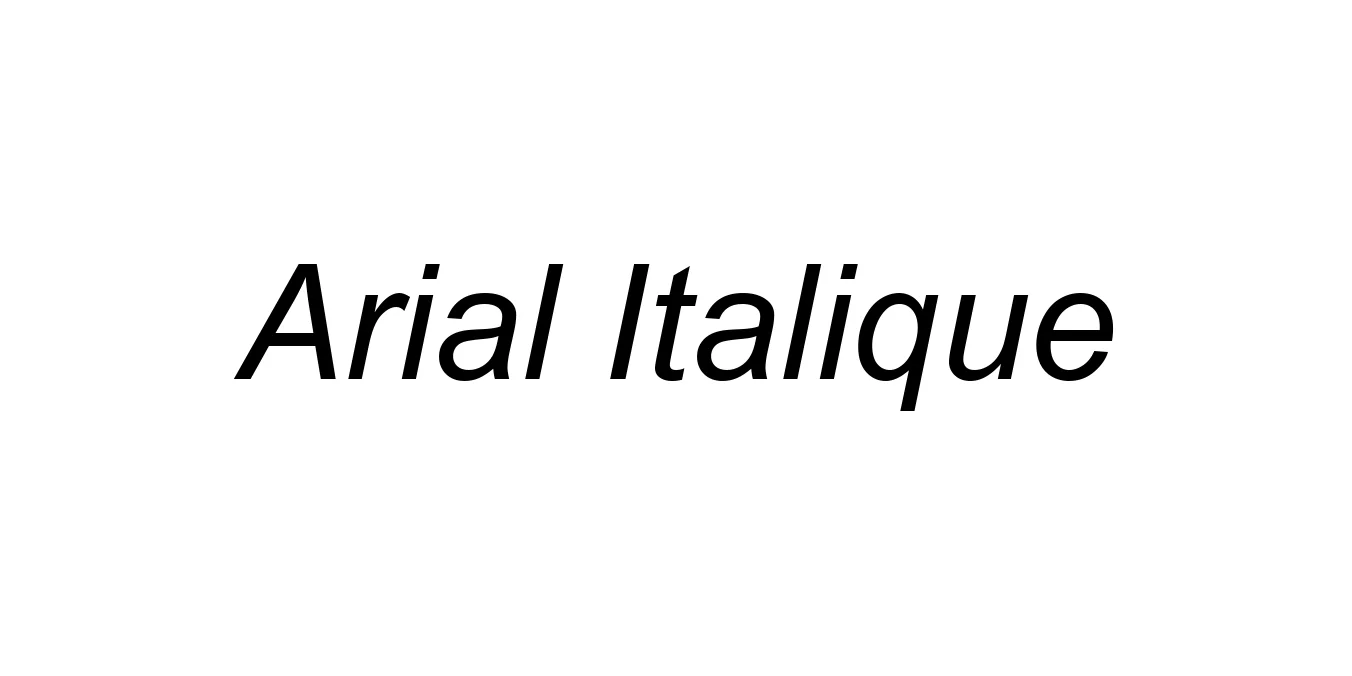
Arial Italique
Designed by Robin Nicholas and Patricia Saunders
| Category | Neo-Grotesque Sans Serif |
| Designer | Robin Nicholas and Patricia Saunders |
| Similar Fonts | Helvetica, Arimo, Liberation Sans, Roboto |
Arial Italique was designed in 1982 by a team led by Robin Nicholas and Patricia Saunders for Monotype Typography. Originally conceived to compete with Helvetica and to be utilized in IBM’s laser printers, it was engineered to match the character widths of its Swiss counterpart. This metric compatibility allowed documents formatted for Helvetica to be printed using Arial without text reflow. Over the decades, it has become one of the most ubiquitous typefaces in the digital world, shipped as a standard font with Microsoft Windows and Apple macOS environments.
From a technical standpoint, Arial Italique is an oblique rather than a true calligraphic italic. The letterforms are slanted at a consistent angle, maintaining the neo-grotesque structure of the Roman weight. Its high x-height and open counters facilitate exceptional legibility at low resolutions, making it a workhorse for screen-based interfaces. Unlike the more rigid Helvetica, Arial features softer, more rounded terminals and a diagonal cut on the 't' and 'l', which contributes to a more organic, albeit neutral, visual texture in long-form body copy.
Arial Italique Best Uses
Highly legible for long-form digital articles and technical documents.
A standard choice for buttons, menus, and system labels across various platforms.
Conveys a professional and unbiased tone in official business communication.